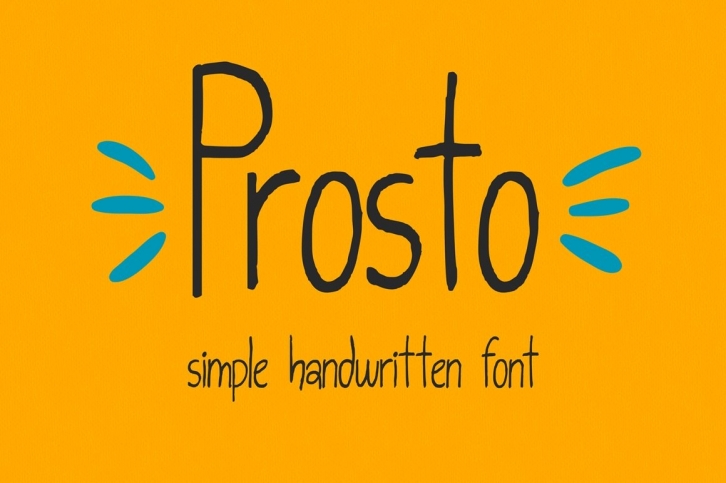
Let me introduce you Prosto Font. "Prosto" it means "simply" in russian, and this font is simple but elegant. Prosto has a cute handwritten look which perfectly combined with any kind of design.
Prosto Font is a good choise for greeting cards and invitations, restaurant menu and advertising booklets, any type of decoration, where is needed simple handdrawn style.
The font is available in two styles: Regular and Italic